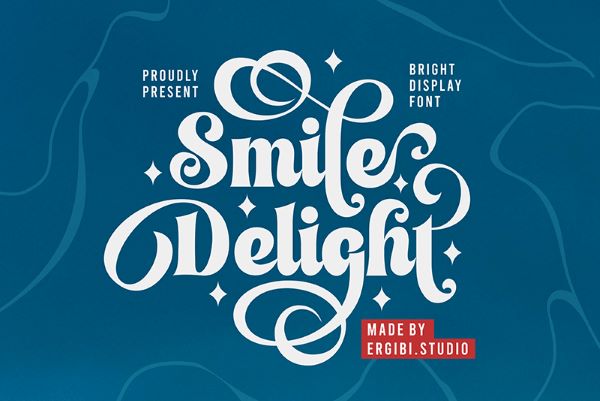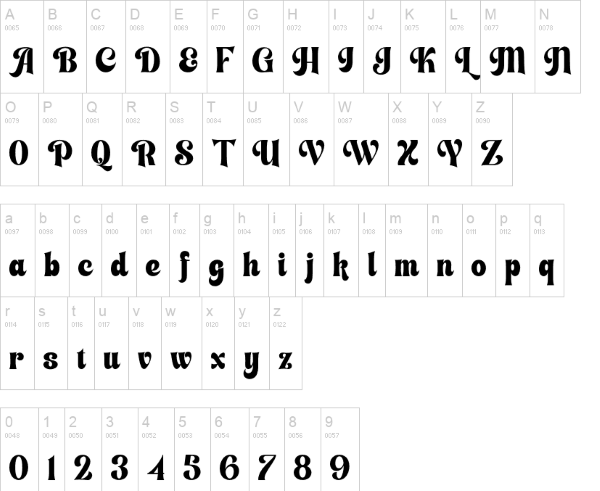
Smile Delight Font
Smile Delight Font is a bold display typeface that radiates confidence, joy, and creativity. Featuring thick strokes and playful curves, it’s designed to make a strong visual statement. Perfect for headlines, posters, branding, and packaging, Smile Delight adds cheerful energy and expressive personality to designs that aim to feel fun, vibrant, and eye-catching.
➤ Font Name: Smile Delight
➤ Designer: Riyadh Rahman
➤ Style: Retro